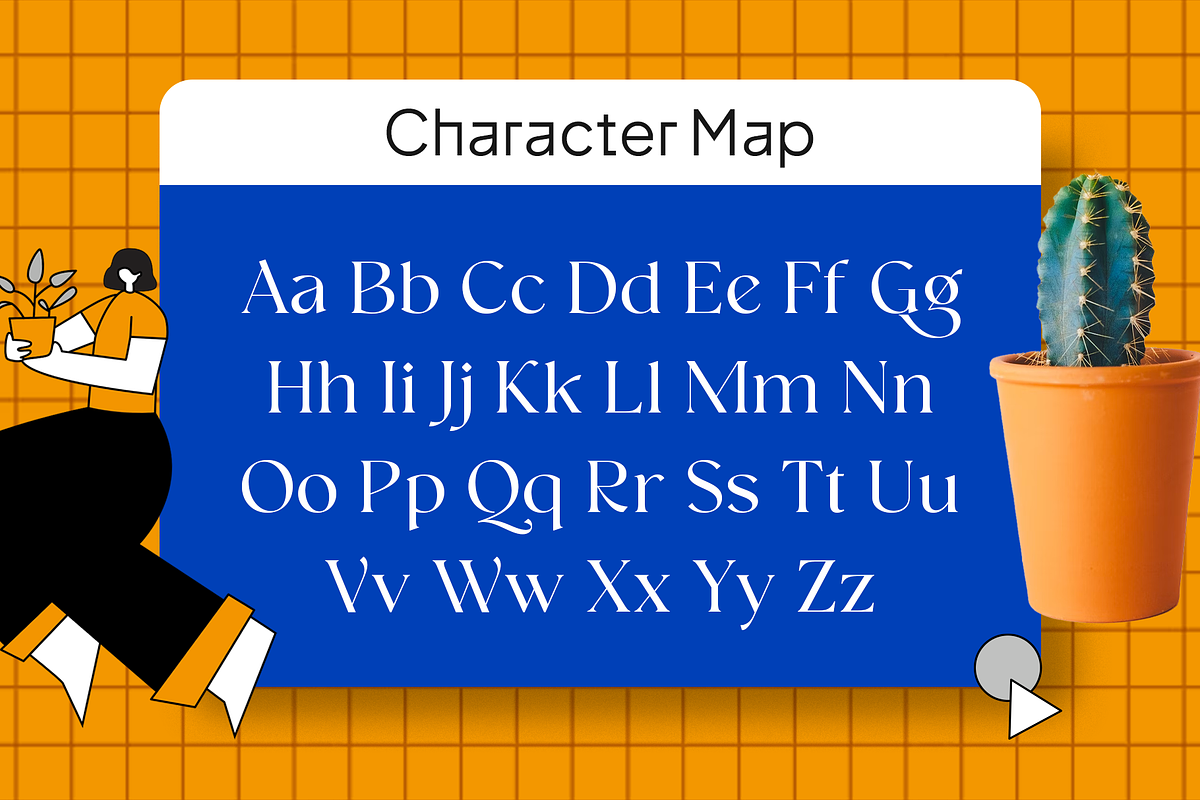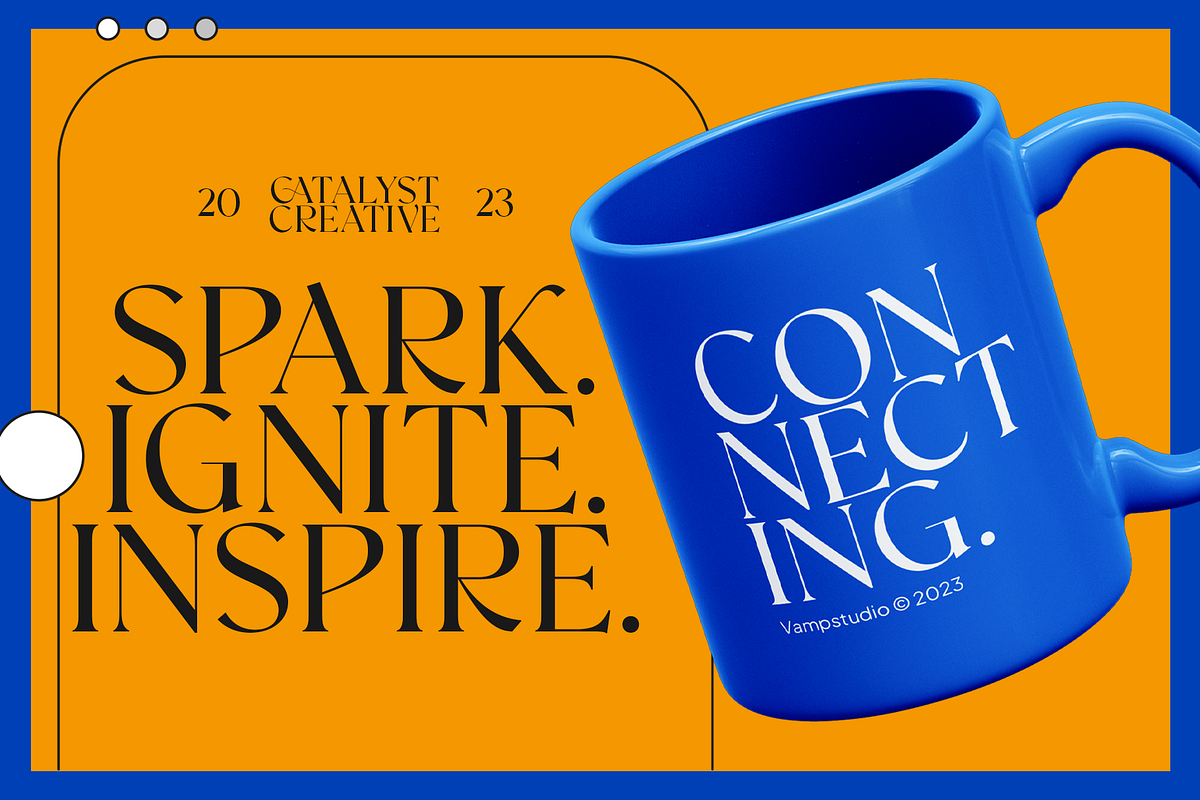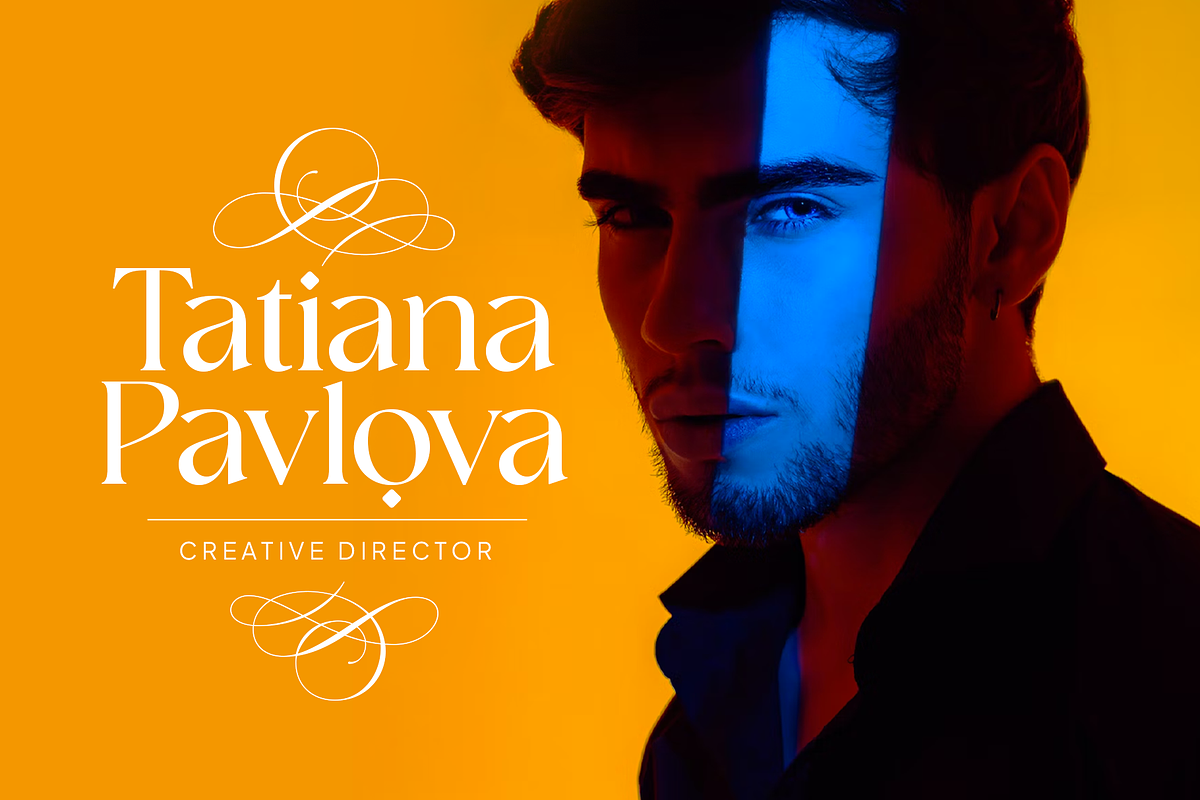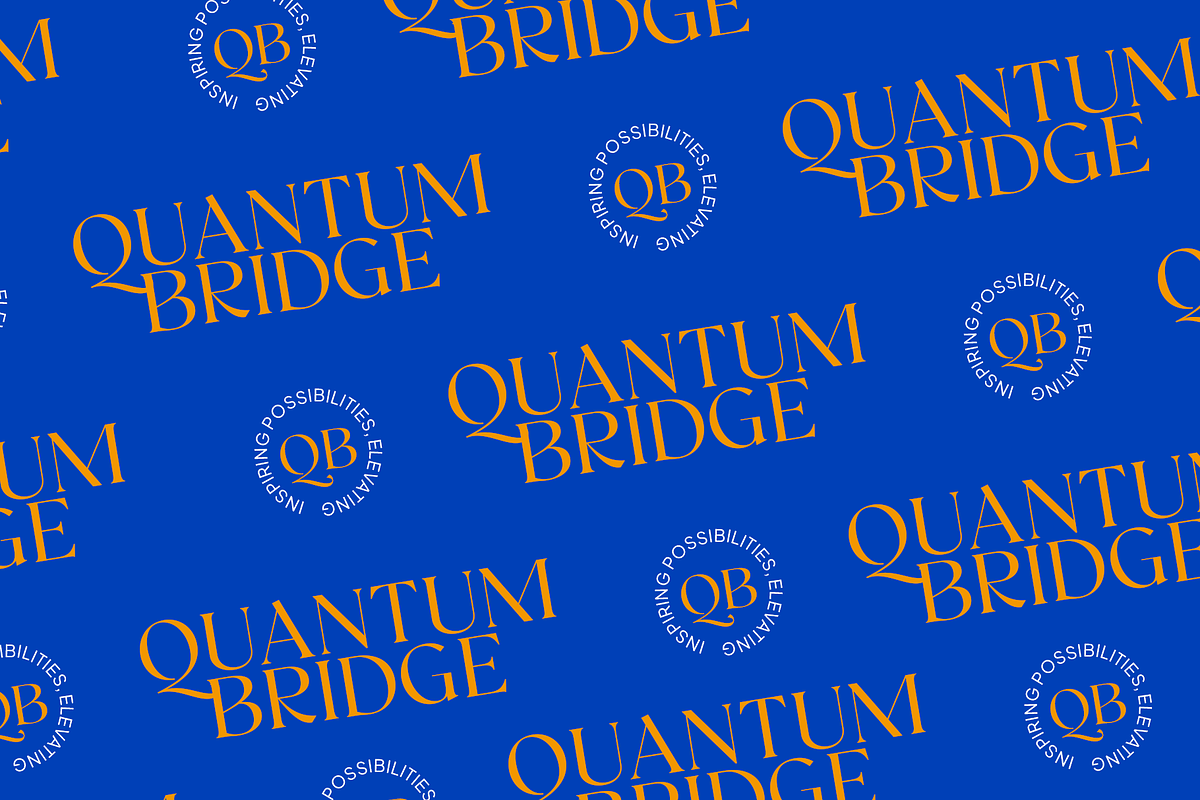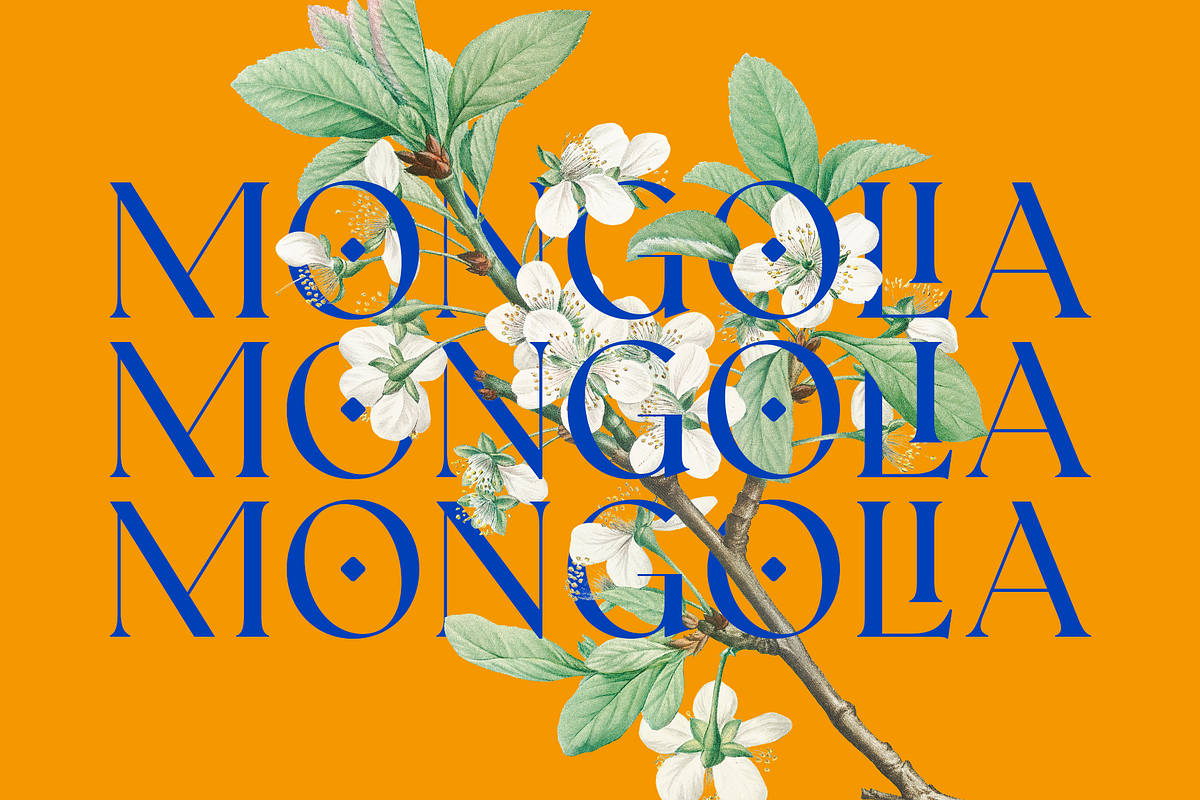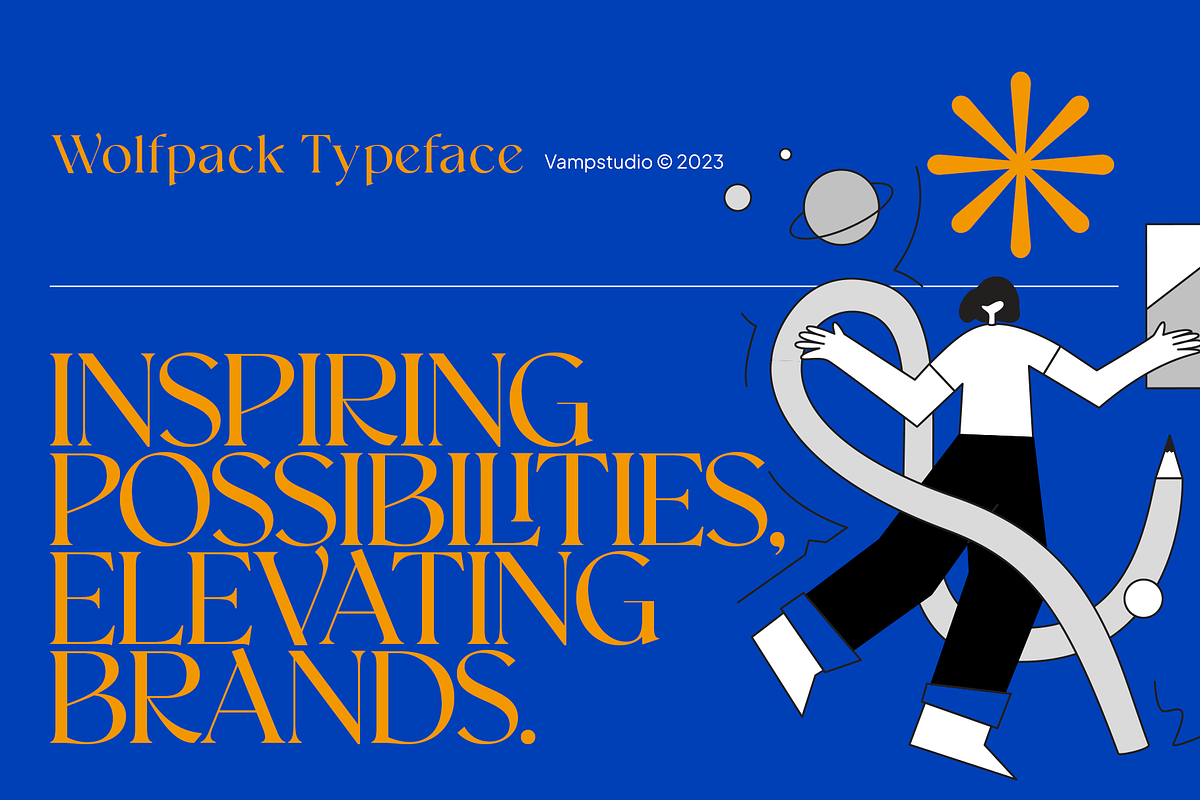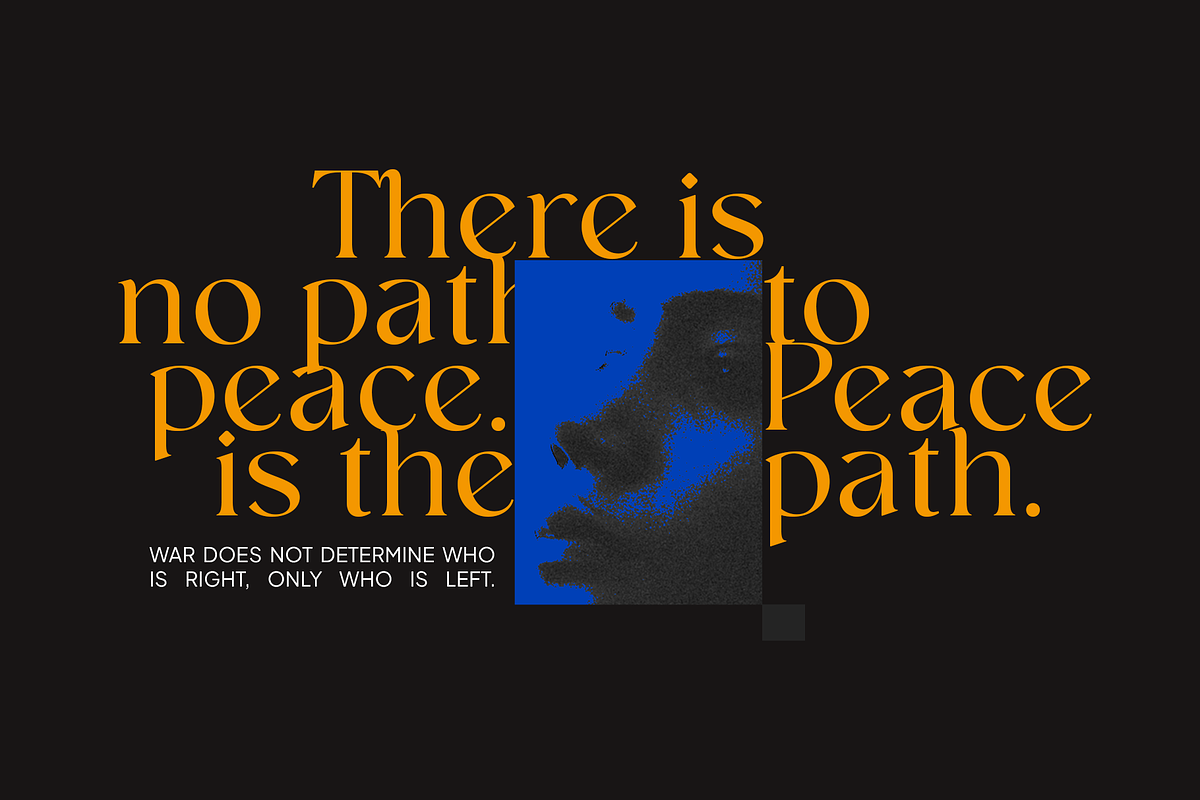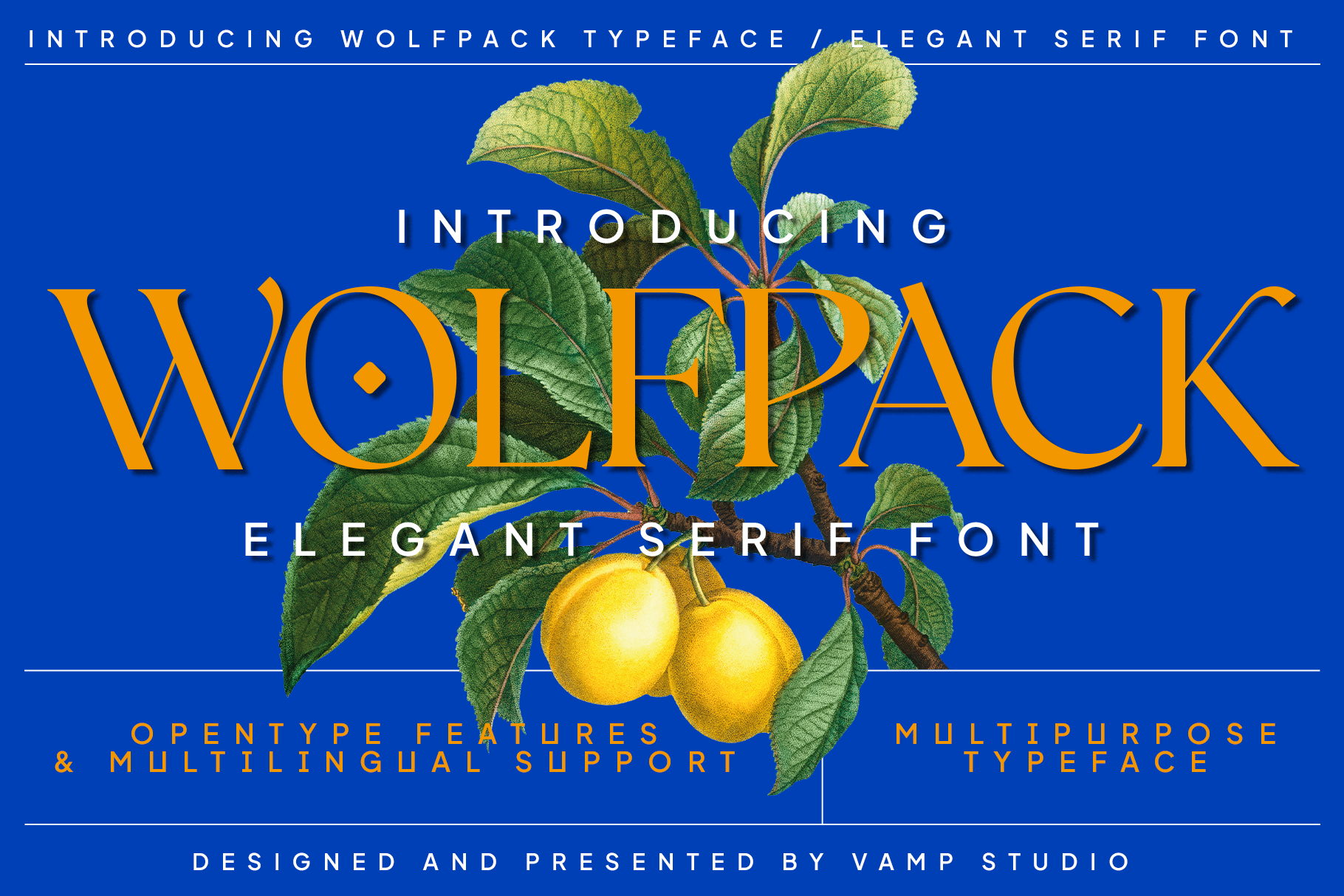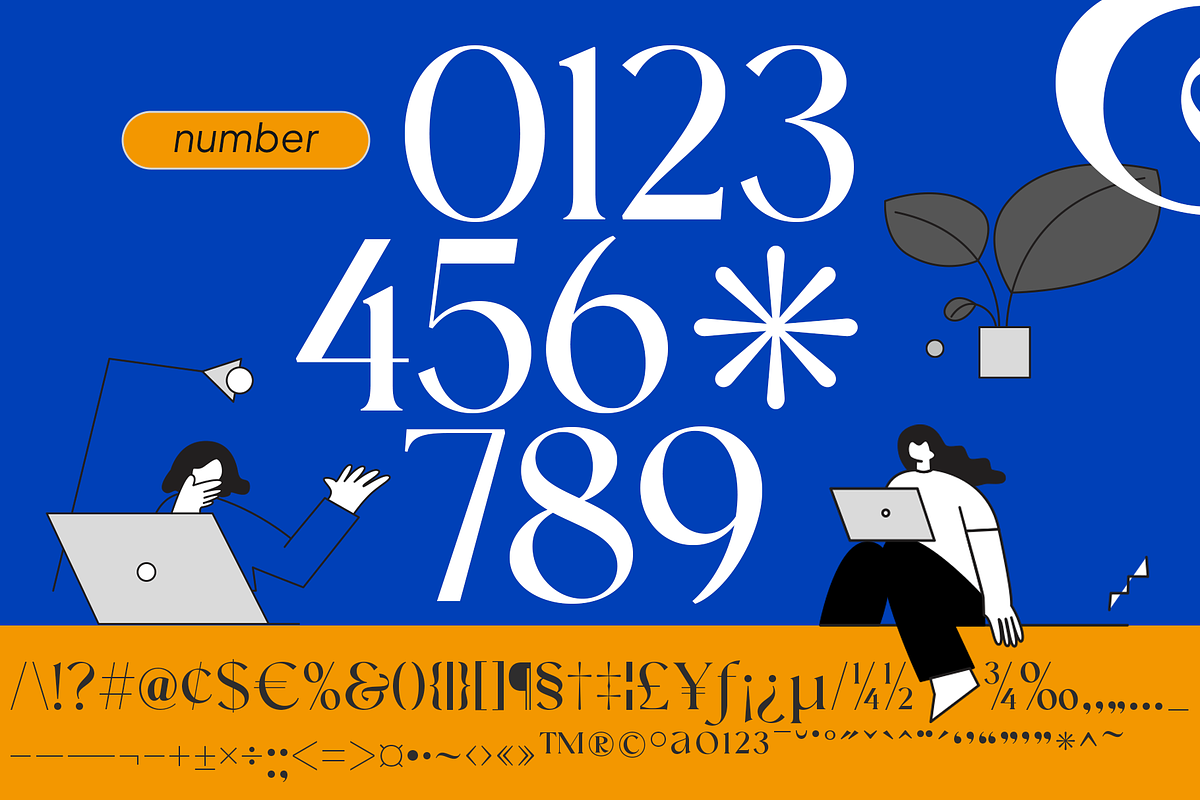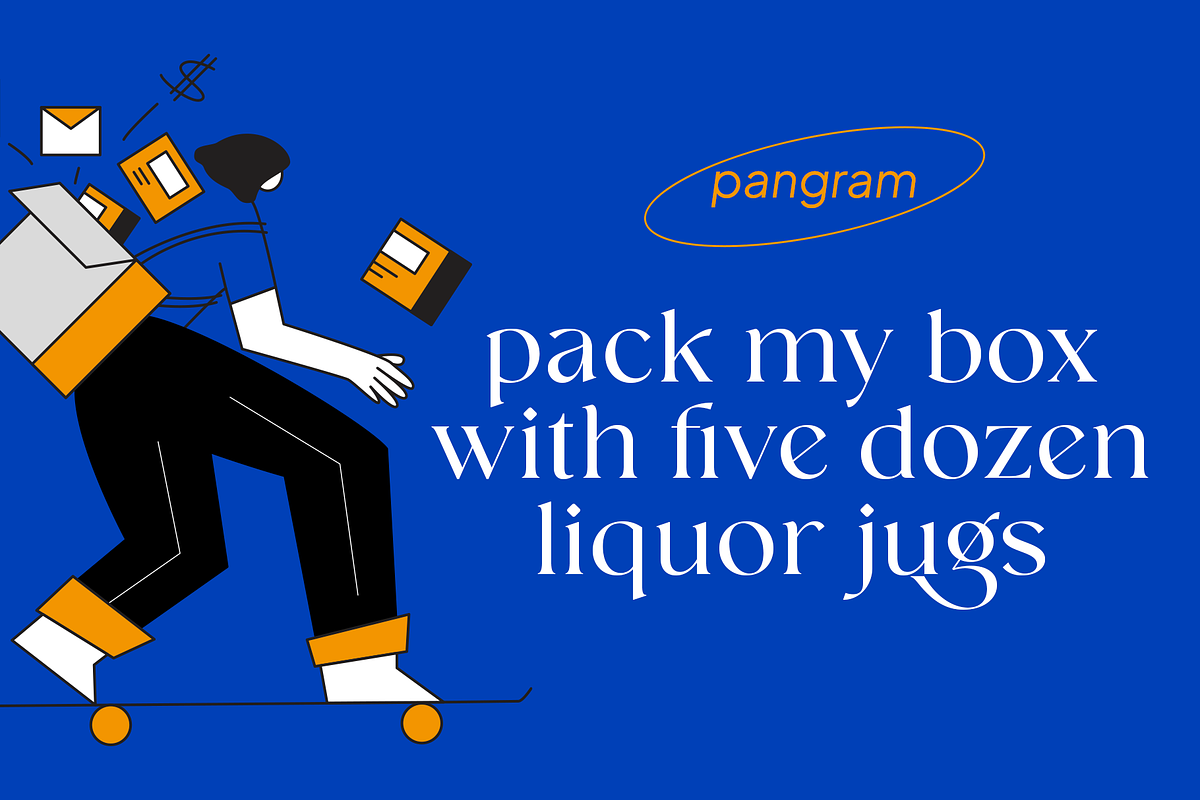
Wolfpack Elegant Stylish Font
Introducing "Wolfpack" – Where Elegance Meets Luxury in Serif Typography!
Prepare to elevate your design game with "Wolfpack," an exquisite serif font meticulously crafted to exude elegance and luxury in every stroke.
Immerse yourself in the sophistication of this font's design, where each character embodies a sense of refinement and timeless class. "Wolfpack" is not just a font; it's a statement – a fusion of sleek serifs and graceful curves that exude opulence and prestige.